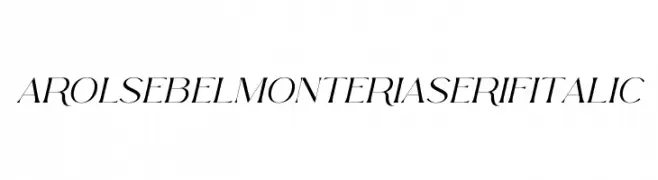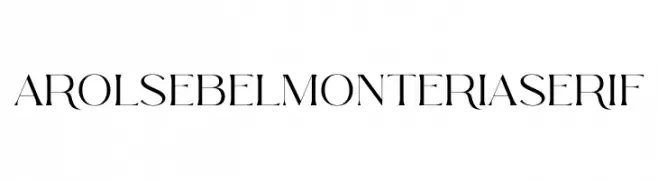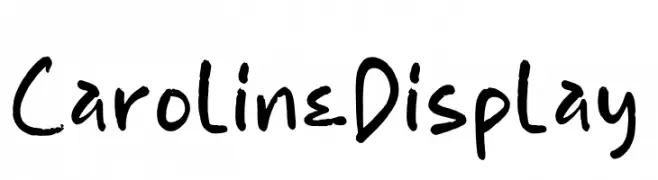
A playful, casual handwritten font with smooth, flowing strokes.
A flowing, cursive script font with elegant, connected strokes.
A flowing, cursive script font with elegant, interconnected letters.
Elegant, flowing script font with a handwritten style.
Elegant serif italic font with high contrast.
Elegant handwritten script font.
Elegant serif font with high contrast.
Playful handwritten script font.